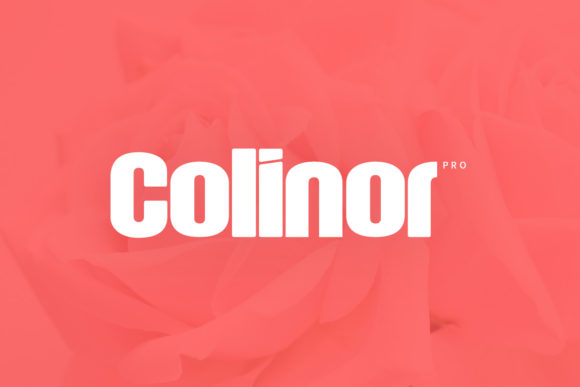
Dive into the world of Colinor Font, where boldness and modernity collide to create a typographic masterpiece. This display font is not just a collection of letters; it's a gateway to unlock your creative potential.
With its thick, assertive strokes, Colinor Font commands attention. It's a font that refuses to blend into the background, demanding to be noticed. Its modern aesthetic exudes sophistication and style, making it the perfect choice for web designs, business cards, and any project that craves a touch of uniqueness.
But Colinor Font is more than just visually appealing; it's a font with a personality. Its strong, confident lines evoke a sense of power and authority. It's a font that speaks volumes without uttering a single word, conveying a message of strength and determination.
Whether you're a seasoned designer or just starting your creative journey, Colinor Font is the perfect companion. Its versatility knows no bounds, making it suitable for a wide range of projects. From eye-catching headlines to polished presentations, Colinor Font will elevate your work to new heights.
"Colinor Font is a game-changer for my web designs. Its bold strokes and modern aesthetic give my website an instant edge." - Sarah, Web Designer
"I love how Colinor Font adds a touch of sophistication to my business cards. It's the perfect way to make a lasting impression." - John, Entrepreneur
"Colinor Font is my go-to font for creating eye-catching headlines. It's impossible to ignore, and it always gets my point across." - Mary, Marketer